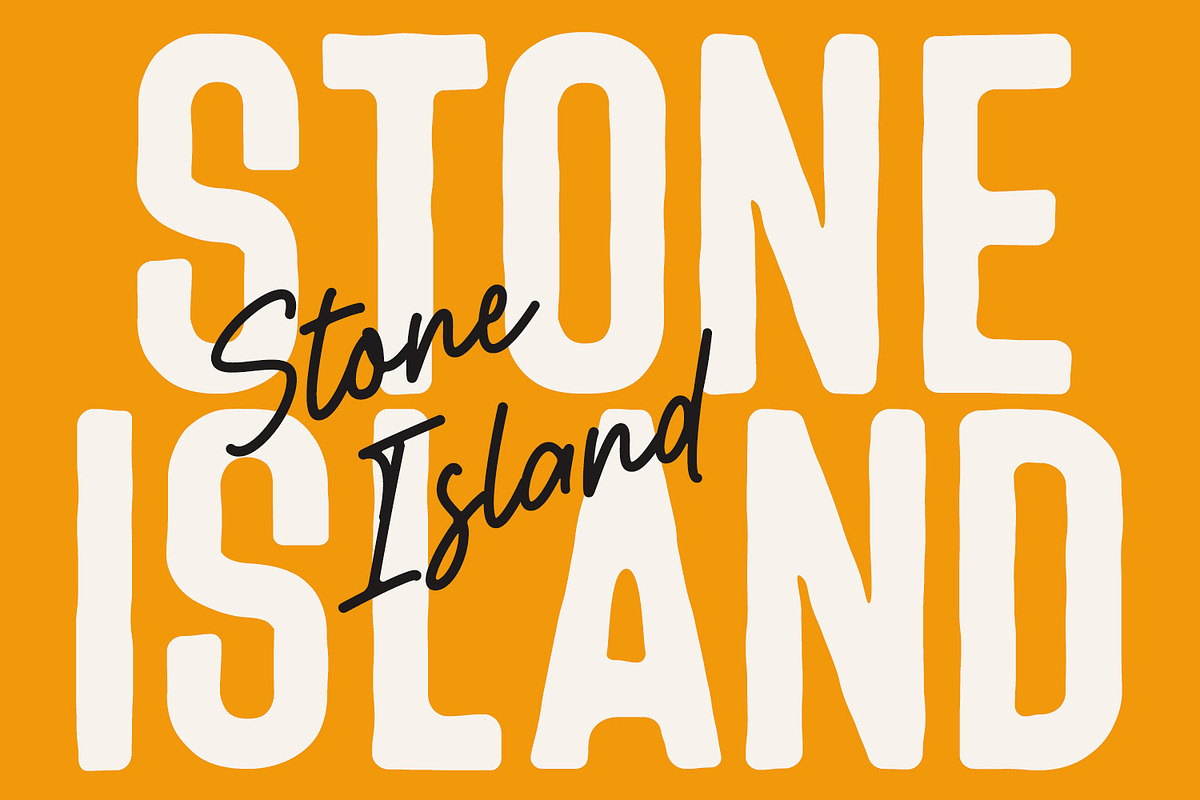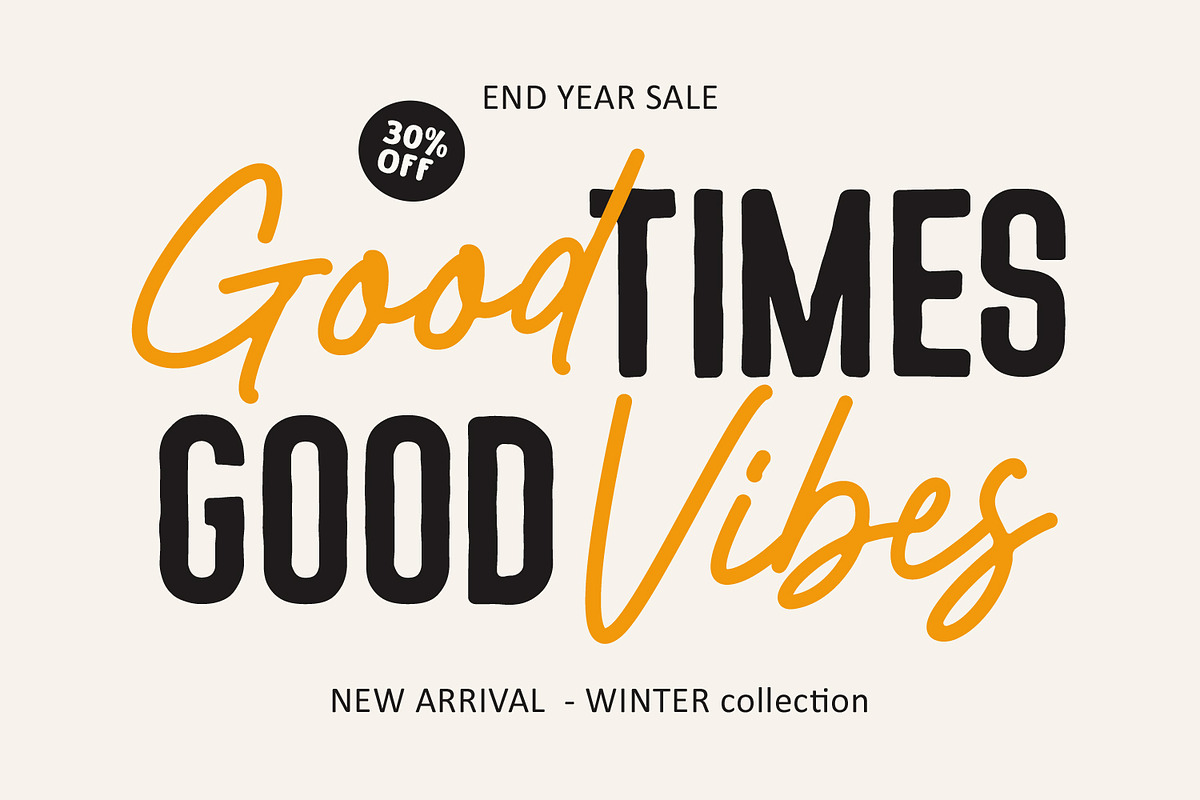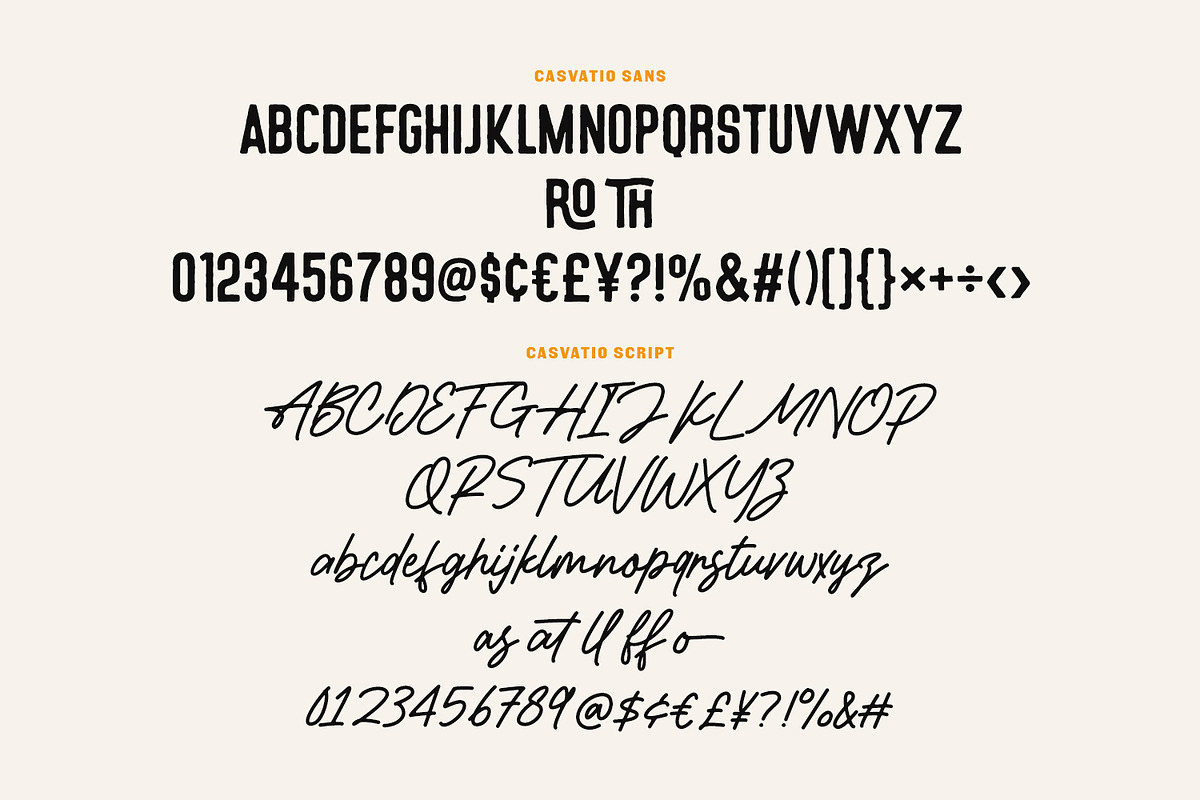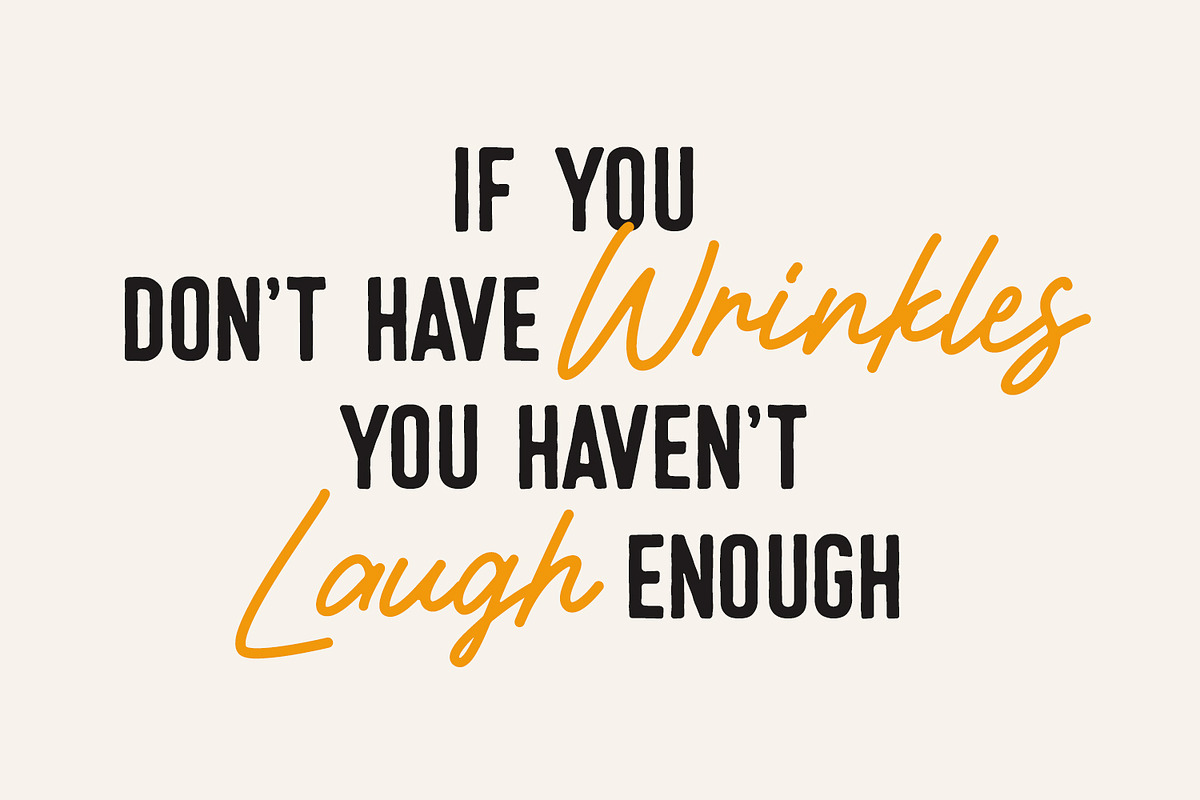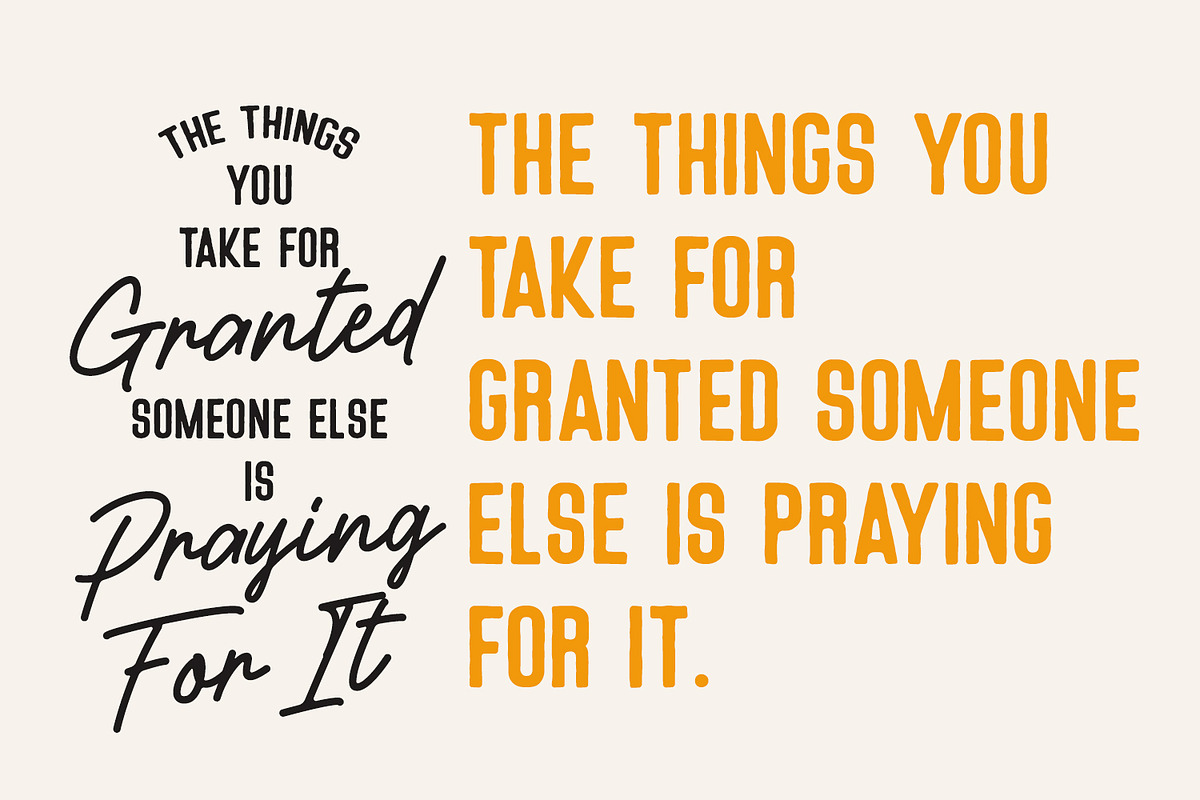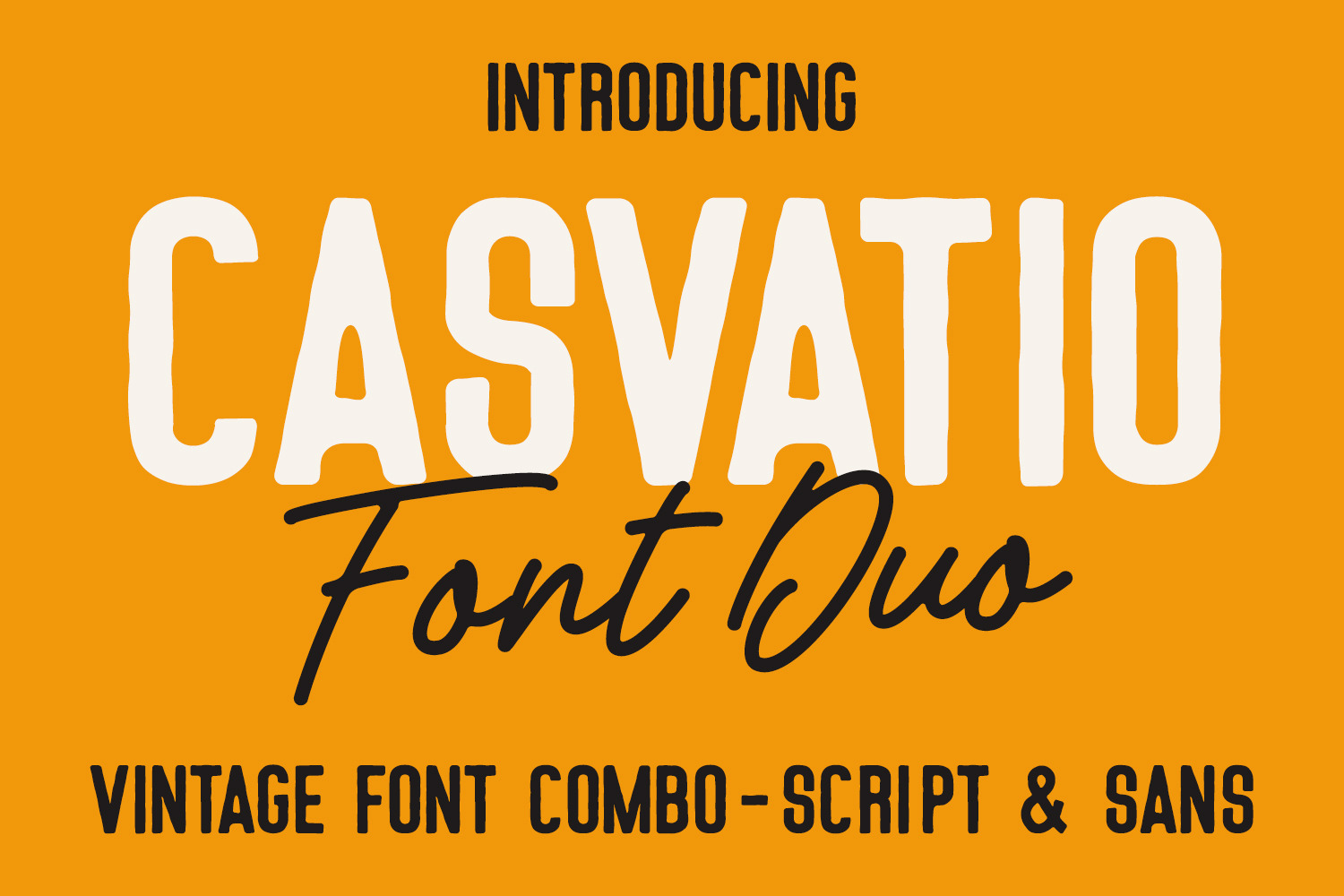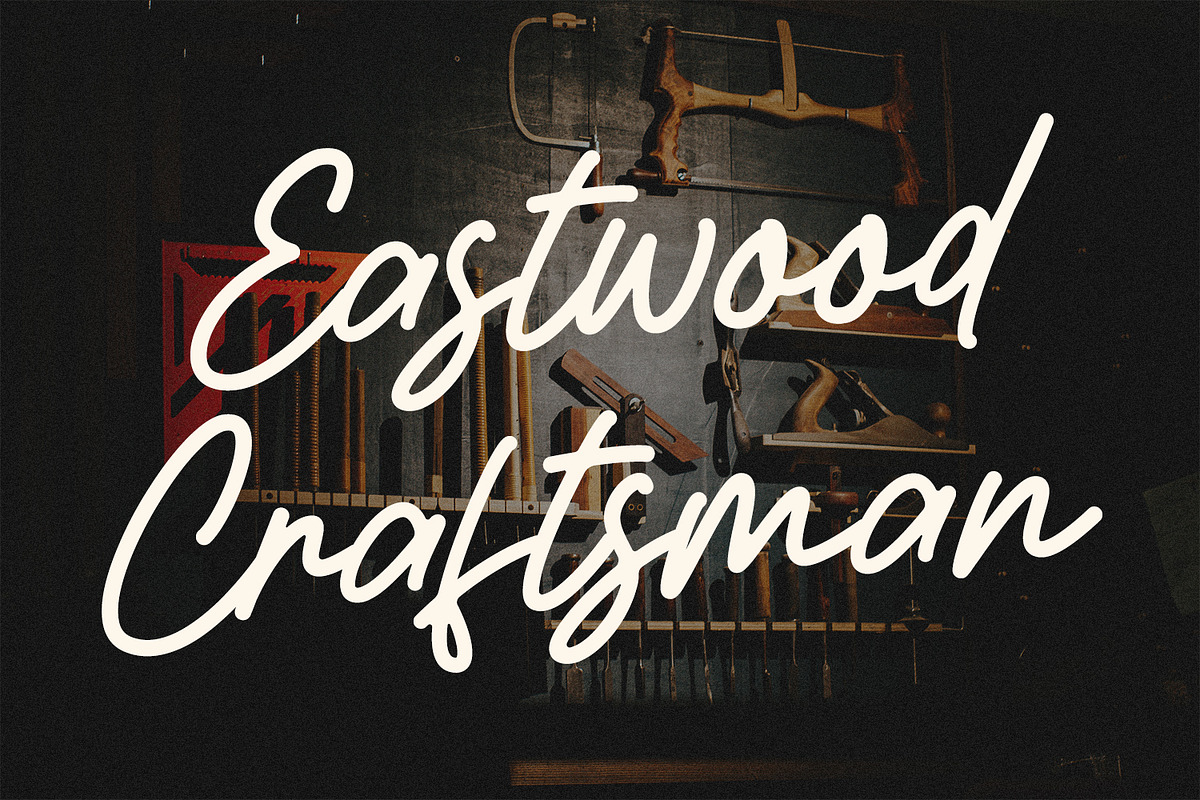
Casvatio Font Duo Script Sans
Casvatio Font Duo is a masterfully paired typography set designed to bring an authentic, hand crafted feel to your creative projects. This combo features a bold, rugged Sans Serif with slightly rounded edges and a fluid, elegant Signature Script that flows with natural grace.
Inspired by classic signage and mid century adventure aesthetics, Casvatio is the perfect choice for logos, design, brewery branding, social media quotes, and vintage style. Whether you are aiming for a rugged craftsman look or a sophisticated good vibes lifestyle brand, this duo provides a balanced contrast that makes any layout stand out effortlessly.
- Script include lowercase and uppercase.
- Sans include uppercase.
- Script and sans include numbers, punctuation, and symbols.
- Script include ligature and alternates for a natural handwriting flow.
- Sans include ligatures.
- Multilingual Support.